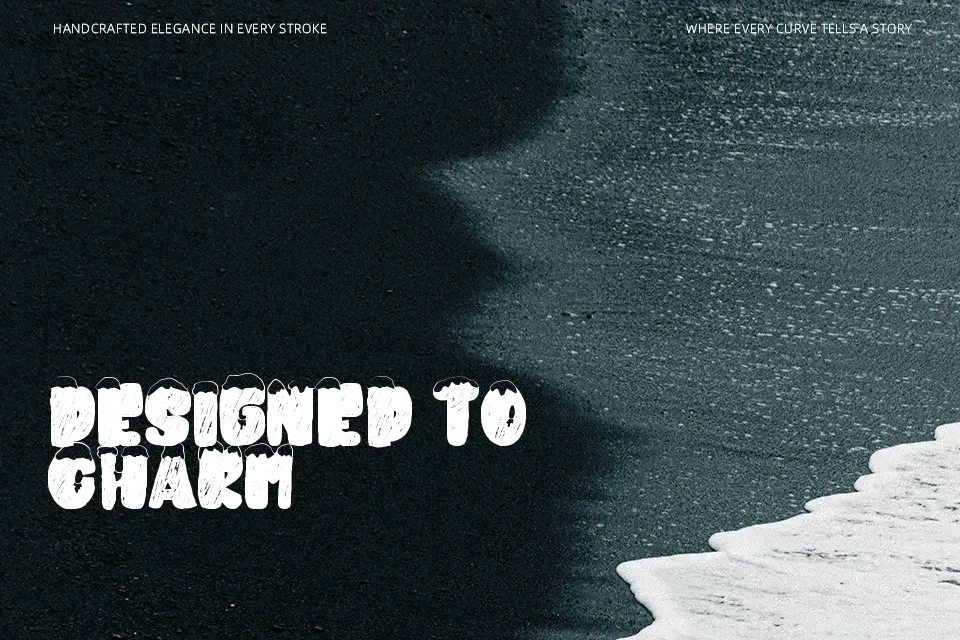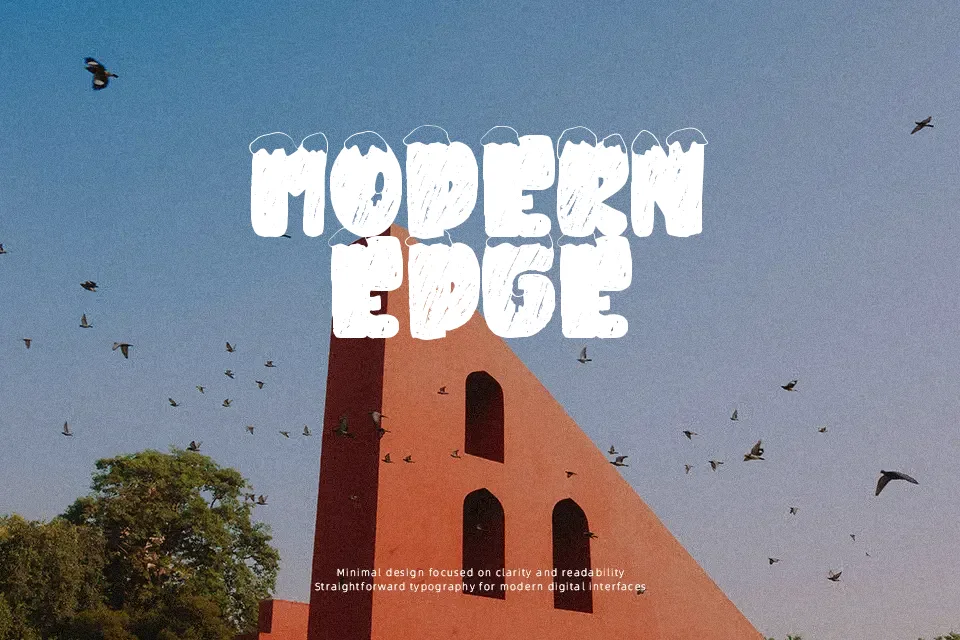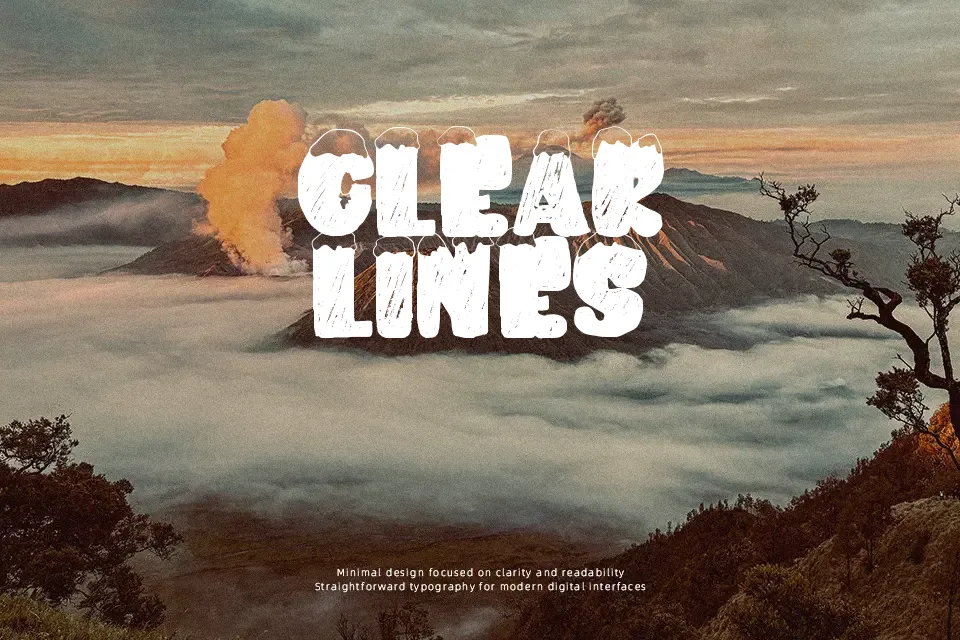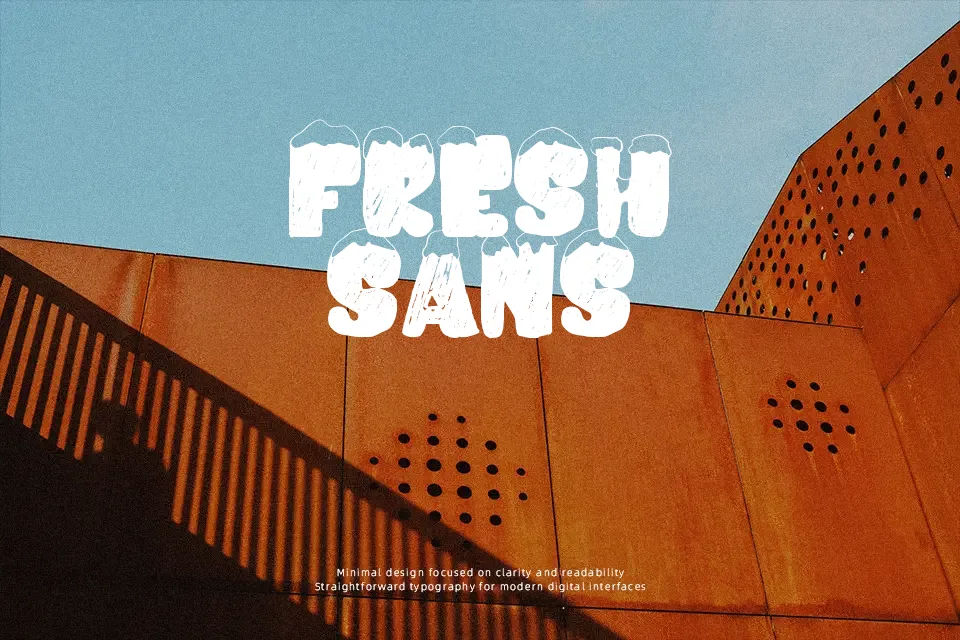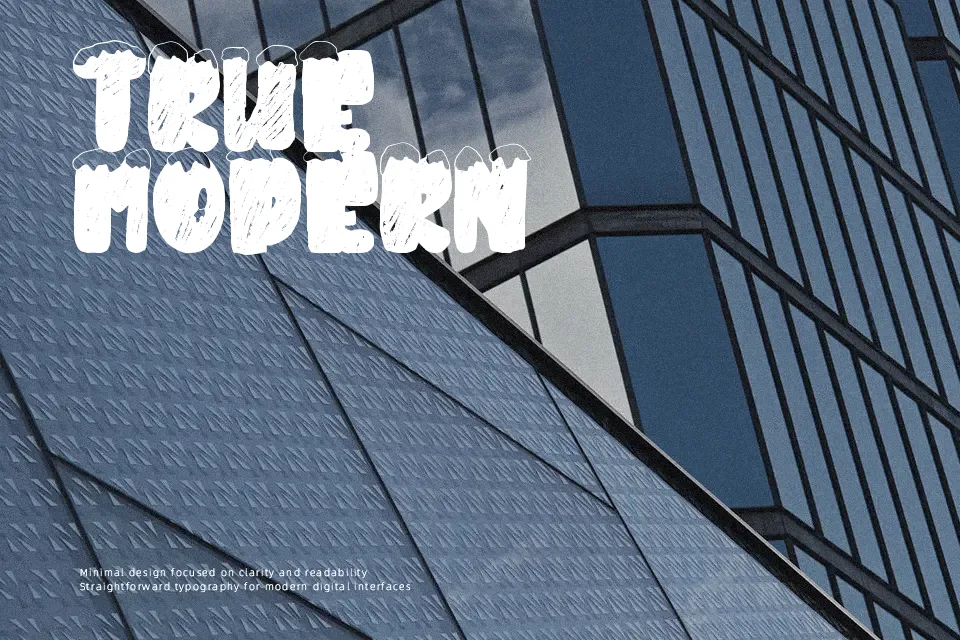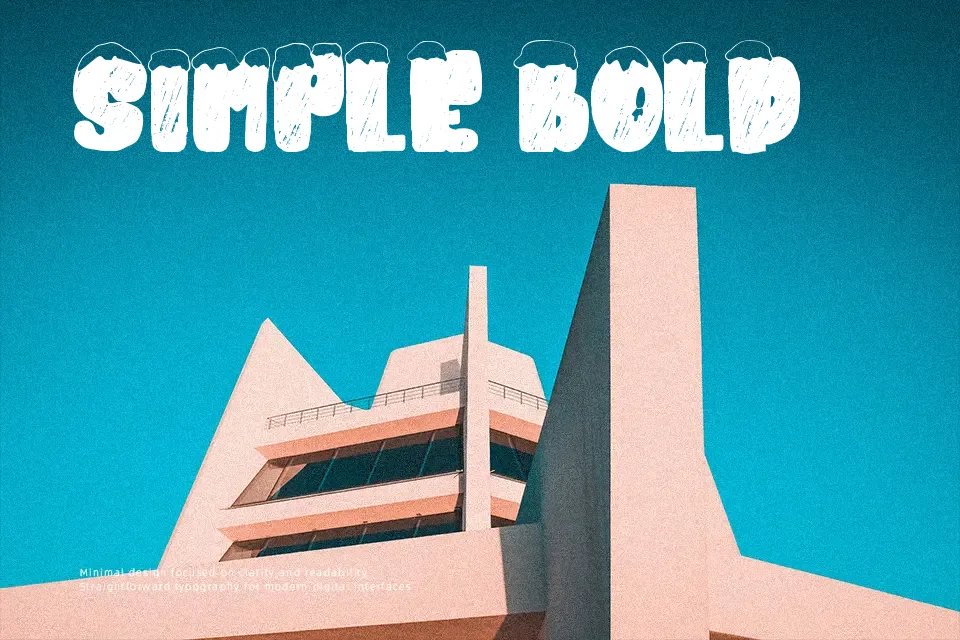
Snowky Brush Font
Snowky Brush Font uses uneven brush strokes, varied contours, and a lively handwritten structure that gives display text a rough, cold-weather character. The letterforms appear broad and visually active rather than mechanically uniform, with spacing that works best when text is kept short. Its textured stroke edges help large headlines stand out in posters, seasonal labels, and social media artwork. The typeface remains most effective at larger sizes, where its irregular details are easier to read. Small captions and tightly set multi-line copy can become less clear because the decorative brush forms create a busy reading rhythm.
Best For: winter event posters,seasonal product packaging,holiday social media graphics,large promotional headlines
Perfect for headline, holiday, and packaging, with a cold and brush style.